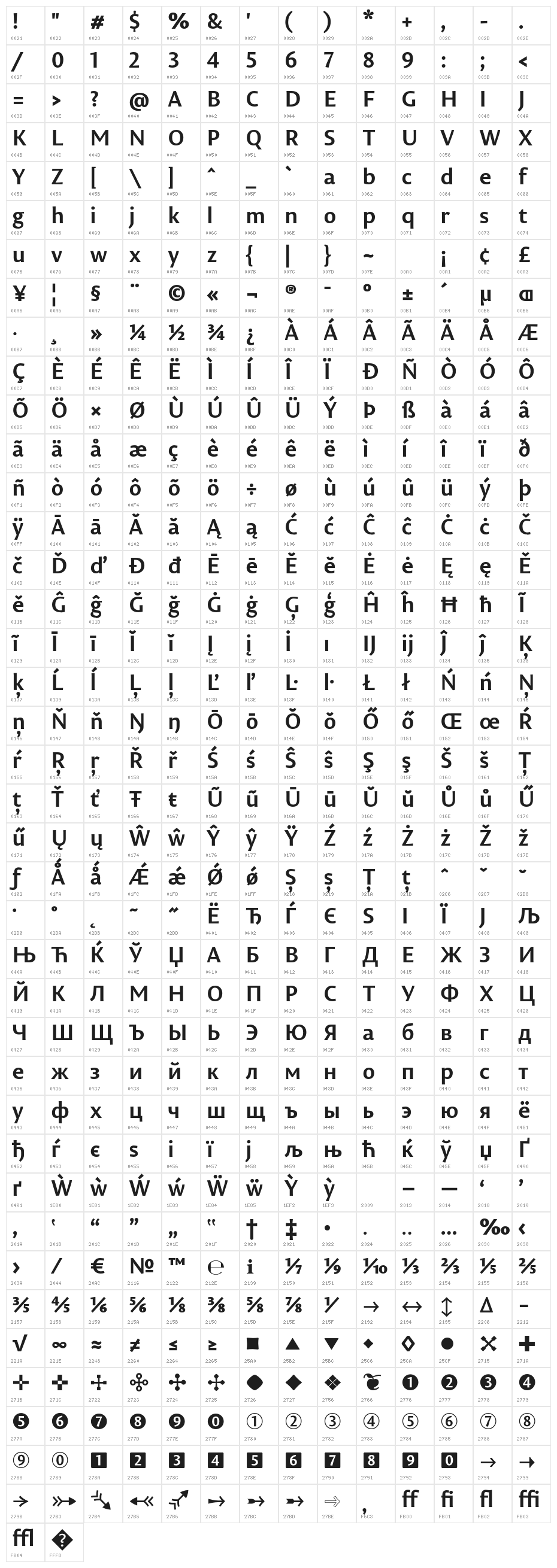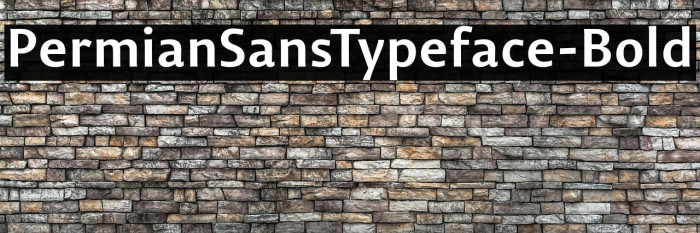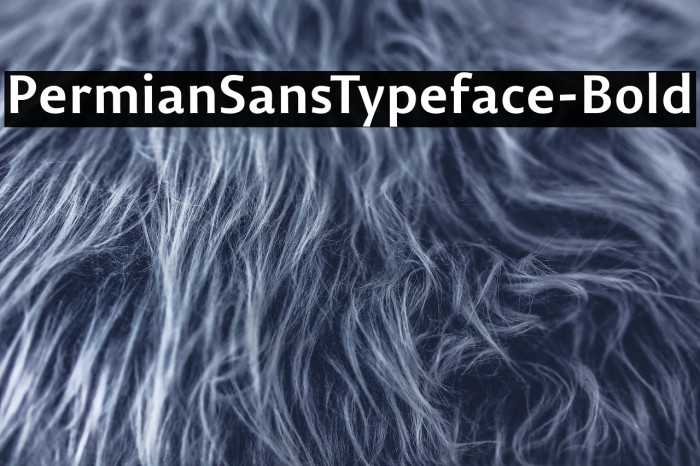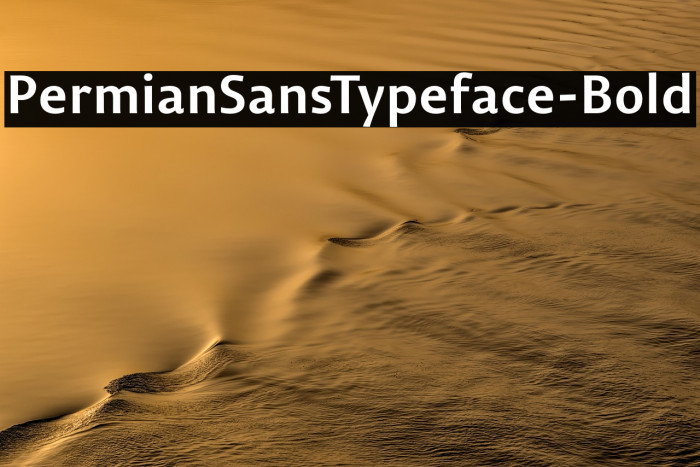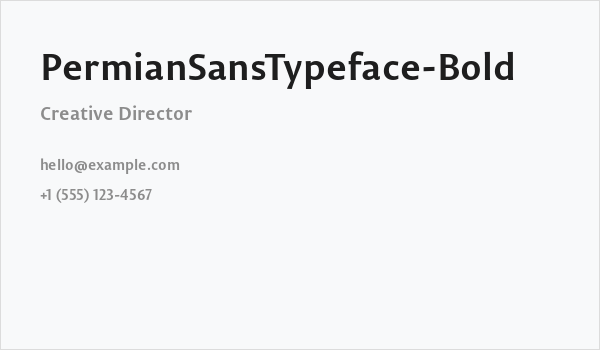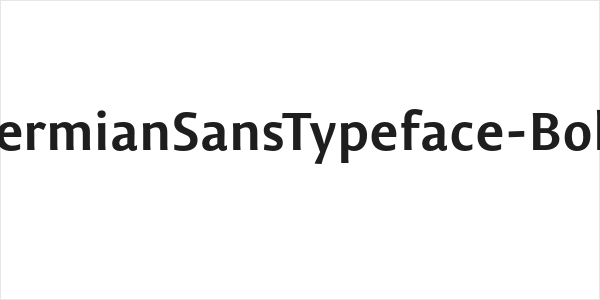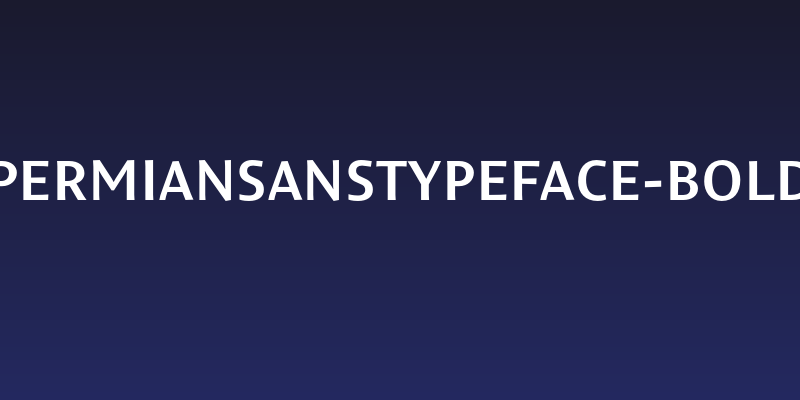
PermianSansTypeface-Bold Font
PermianSansTypeface-Bold Description
This typeface features a bold and modern sans-serif design, characterized by clean lines and a strong presence. The uppercase letters are uniform in height, offering a balanced and cohesive look. The lowercase letters maintain a consistent x-height, providing readability and a contemporary feel. The numerals are clear and distinct, making them suitable for various applications. Special characters are well-defined, enhancing the font's versatility. Overall, this typeface exudes a professional and polished appearance, ideal for making a statement.
| Proposed Projects | Ideal for branding, headlines, advertising, and digital media projects. |